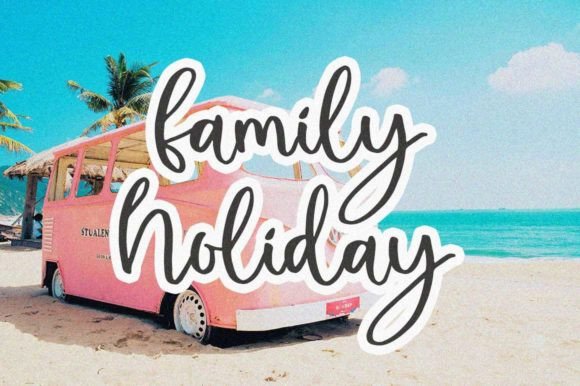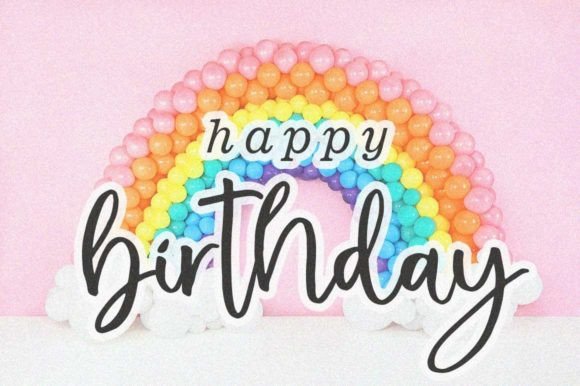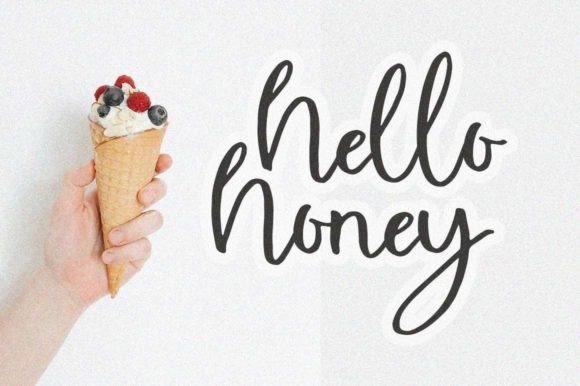
Introduction to Farmhouse Kitchen Font
Farmhouse Kitchen is a very simple and beautiful handwritten font made with great care to get interesting writing.
This font will be your favorite choice for digital design, crafts, presentations, or creating greeting cards, and many other design projects .
Farmhouse Kitchen Font offers exceptional quality and versatility, making it a valuable addition to your design toolkit. Whether you’re creating for personal projects or commercial use, Farmhouse Kitchen Font delivers professional results.